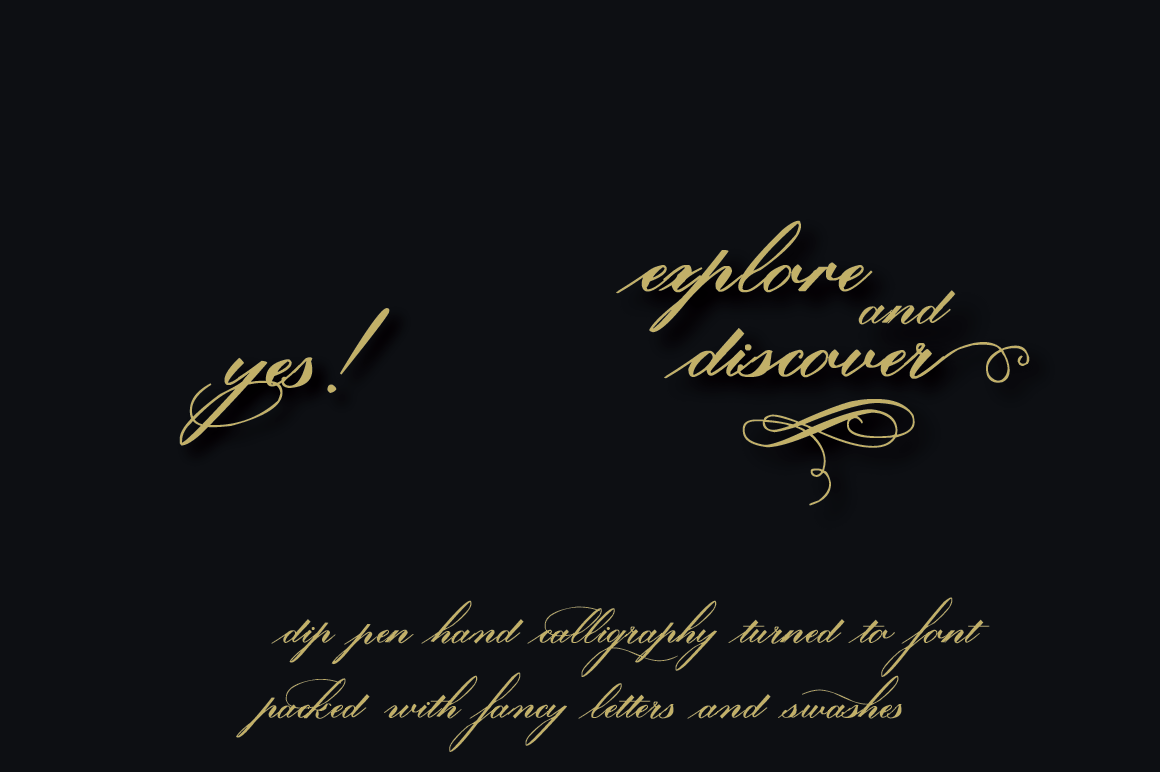
Lavenda Font
Lavenda font is a result of my two years classic calligraphy studies, and is based on my own handwriting. The overall look is classic, which makes it a match for invitations, place cards or other paper goods where old time elegance is required. With the glyph count just under 1500 the font has many alternates and options which makes it flexible to use. Apart from swashes, alternates and ligatures - number of fancy dingbats in also included. Selected letters such as b, f, g, h, j, k, l, q, y, come in great selection of swash variants. You may also add some swashes in front or at the back of any lower case word you type - no matter the language you use. Again, with vast number of glyphs contained should you write in other language than English (see the list of languages covered below) - Lavenda comes as a natural choice.
Lavenda font includes the following Open Type Features:
- Access All Alternates
- Contextual Alternates
- Discretionary Ligatures
- Fractions
- Old Style Figures
- Stylistic Sets (8)
- Subscript
- Superscript